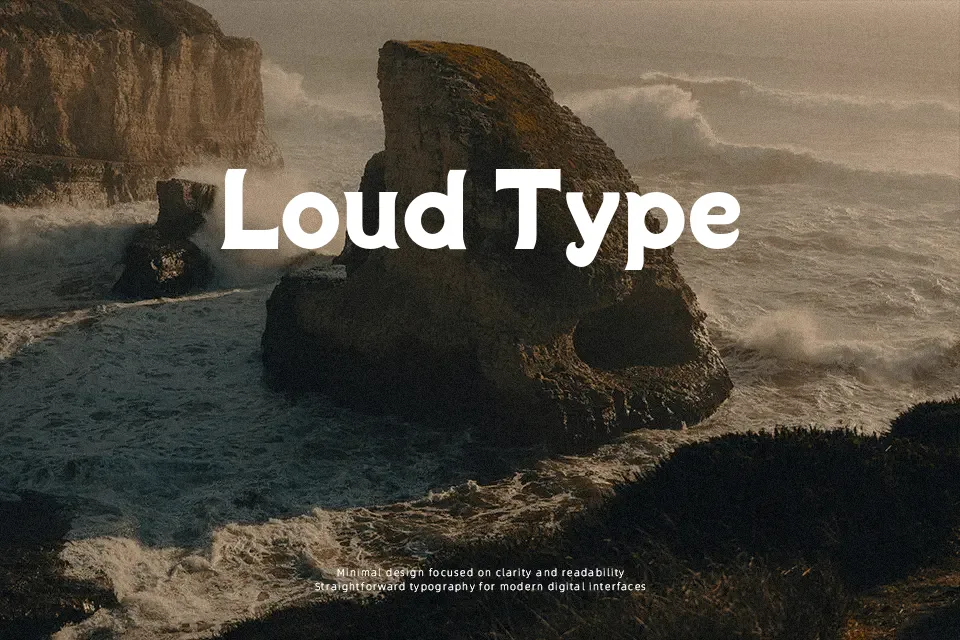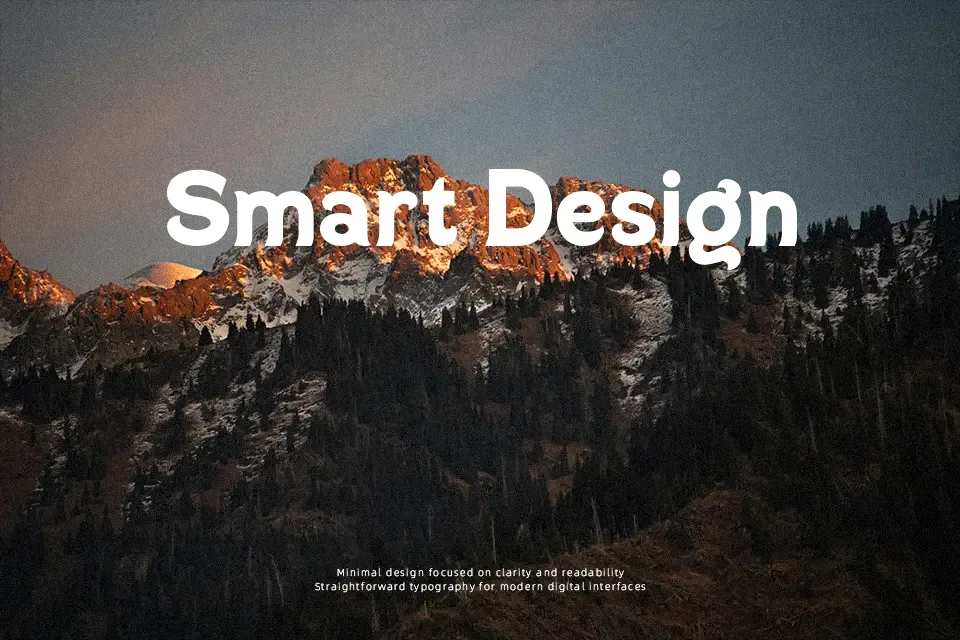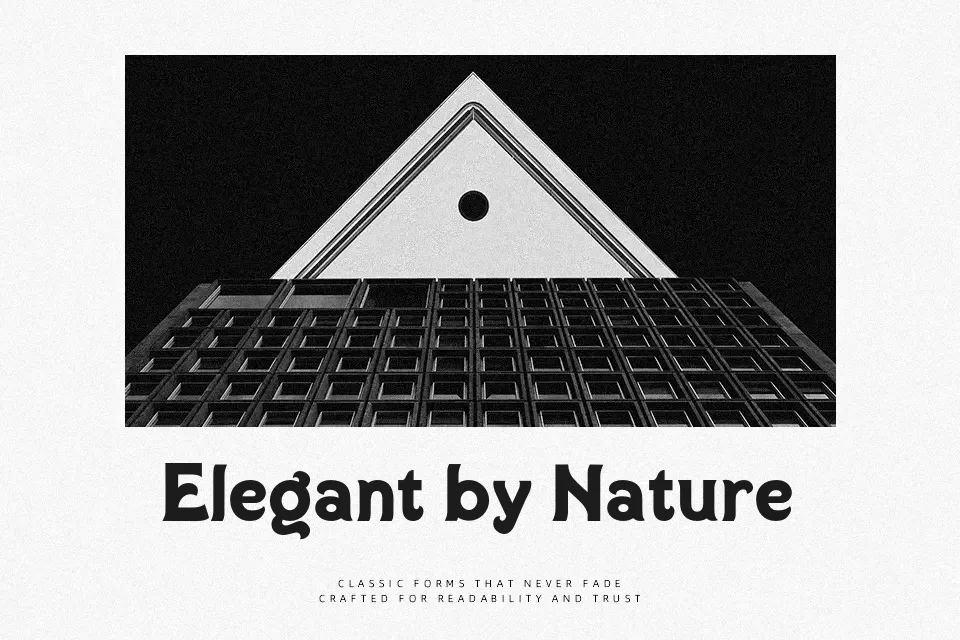
Beach Sound Font
Beach Sound is a casual 70s-style display serif with chunky, uneven strokes, rounded corners, and loose spacing that give it a sun-faded, hand-drawn feel. The letterforms mix serif structure with groovy curves and decorative swashes, so headlines quickly read as retro and a bit quirky rather than formal. It works well on bold branding, food and drink posters, cookie or snack packaging, and social graphics where you want a vintage beach or surf mood. However, its decorative shapes and irregular rhythm make it harder to read in small sizes or long paragraphs, so it performs best when used sparingly as display type, not as body text.
retro food and beverage posters
70s-themed brand logos and wordmarks
vintage-inspired snack or cookie packaging
nostalgic summer or surf event headlines
long paragraph text or body copy
formal corporate documents or reports
minimalist tech or fintech branding
small UI labels or dense editorial layouts
Perfect for branding, headline, and logo, with a creative and decorative style.